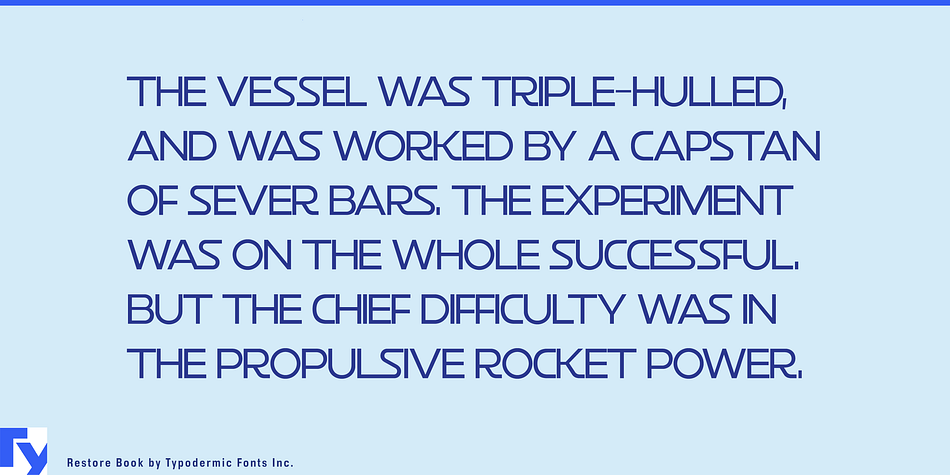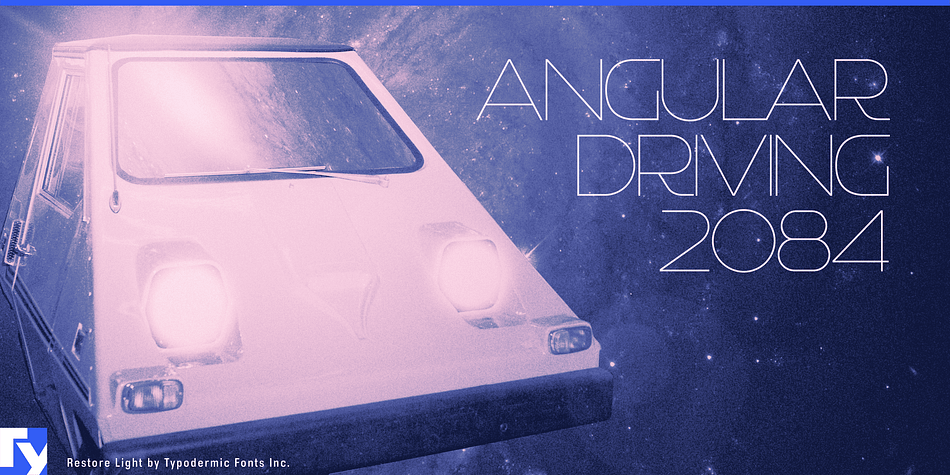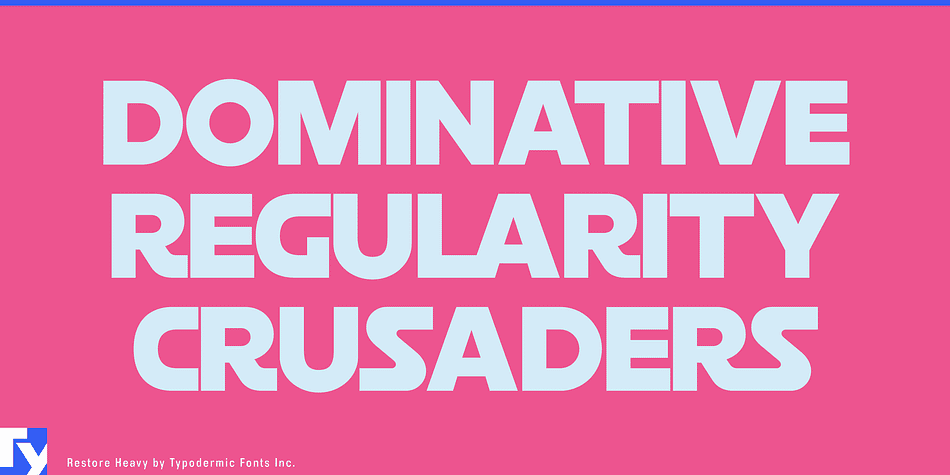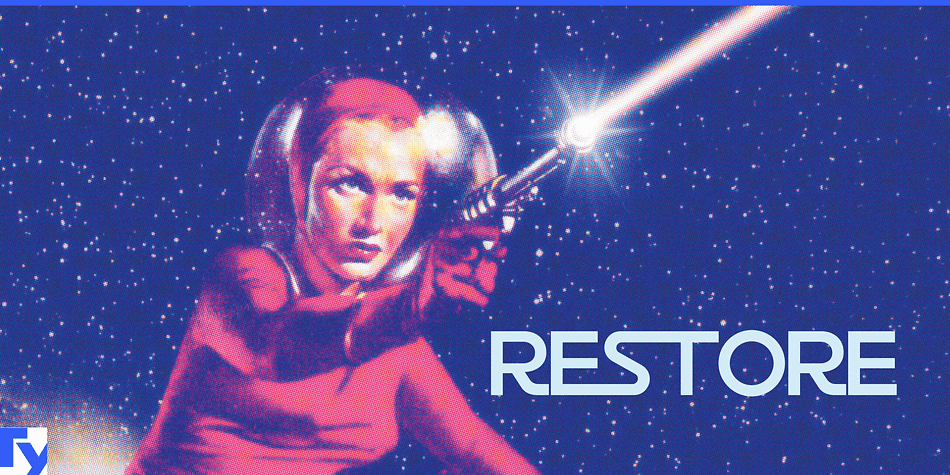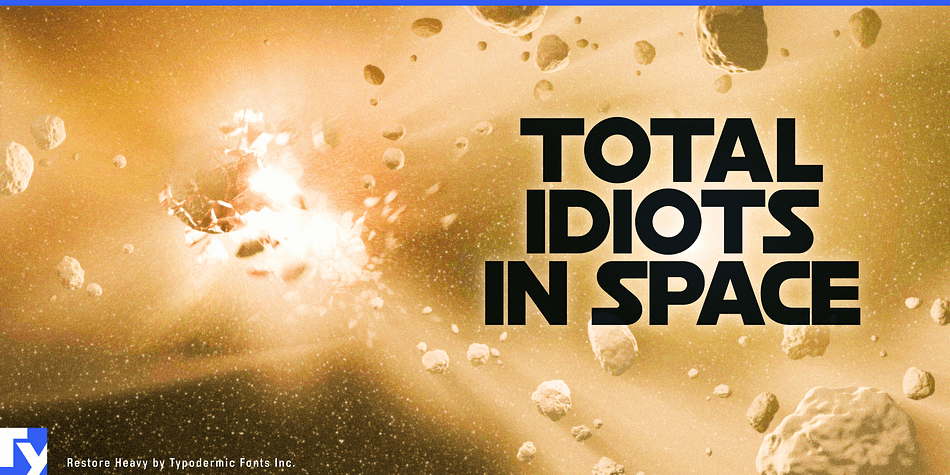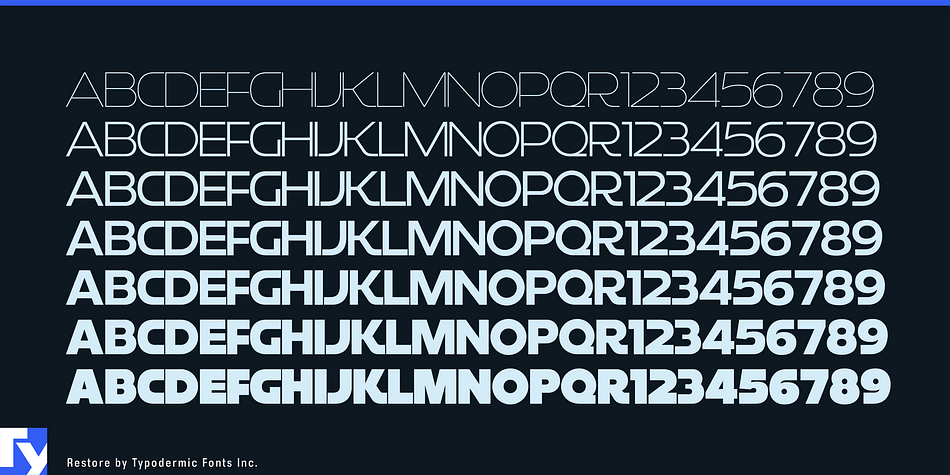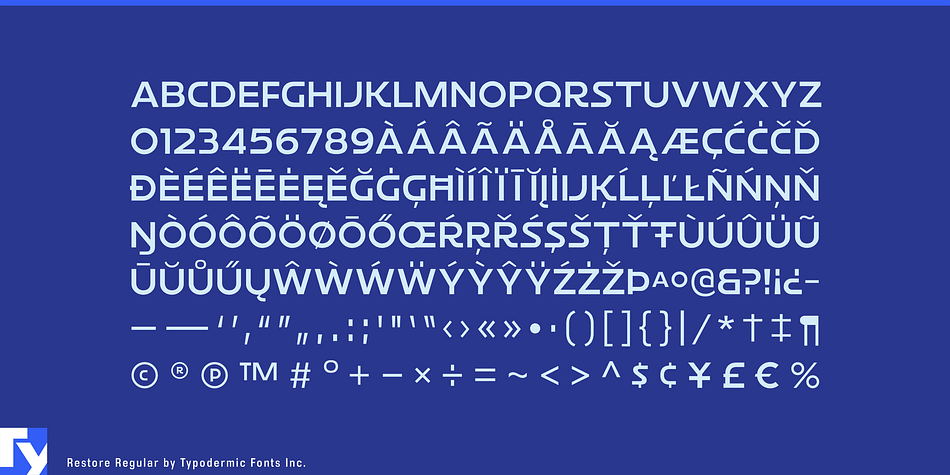
Restore is a display sans font family. This typeface has seven styles and was published by Typodermic Fonts Inc.
Restore is a headline typeface influenced by early twentieth century German sign lettering. The spacing is very tight and some letter combinations such as RS and ST are designed to interlock. Restore is available in 7 weights.